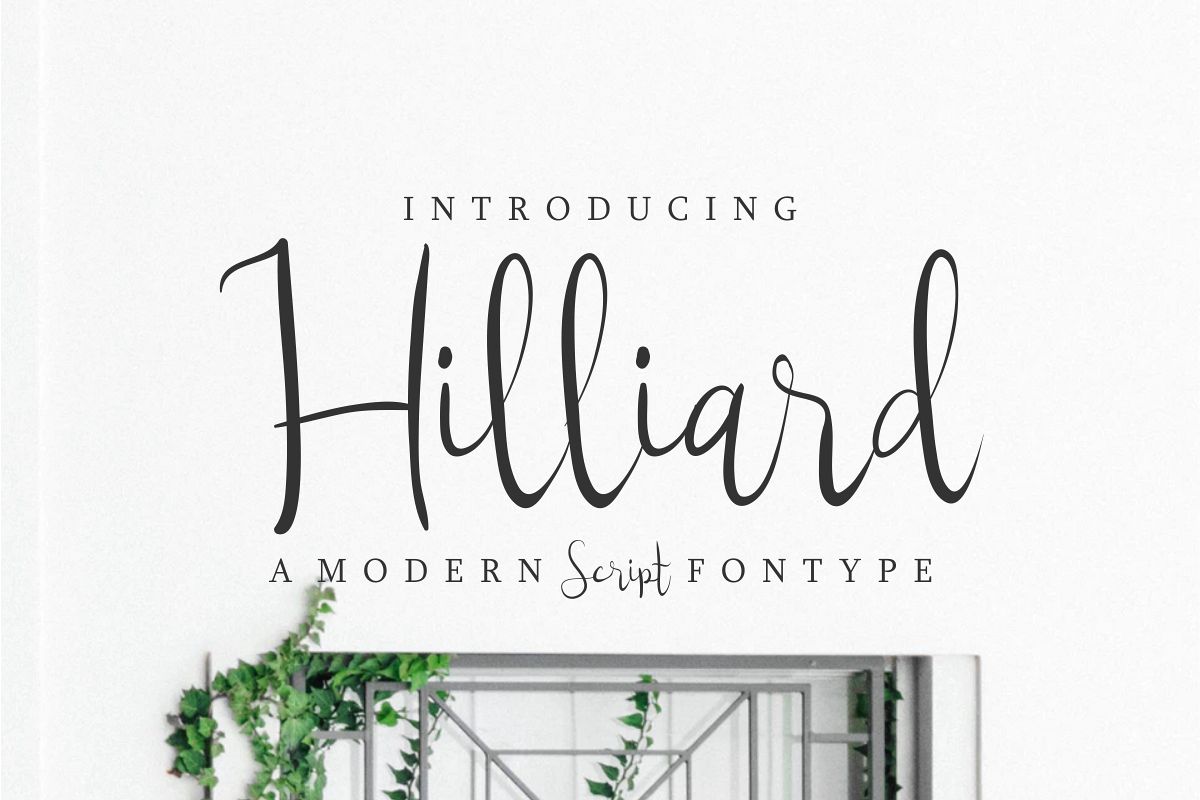
Hilliard
Hello….. Please meet Hilliard, our newest script typeface.This is a new decorative script font with calligraphy style. It has a unique, elegant, and stylish glyph.This font will Work on PC & Mac with Simple installations. Accessible in the Adobe Illustrator, Adobe Photoshop, Adobe InDesign, even work on Microsoft Word.Plus it support multi-languagePurchase NOW =)